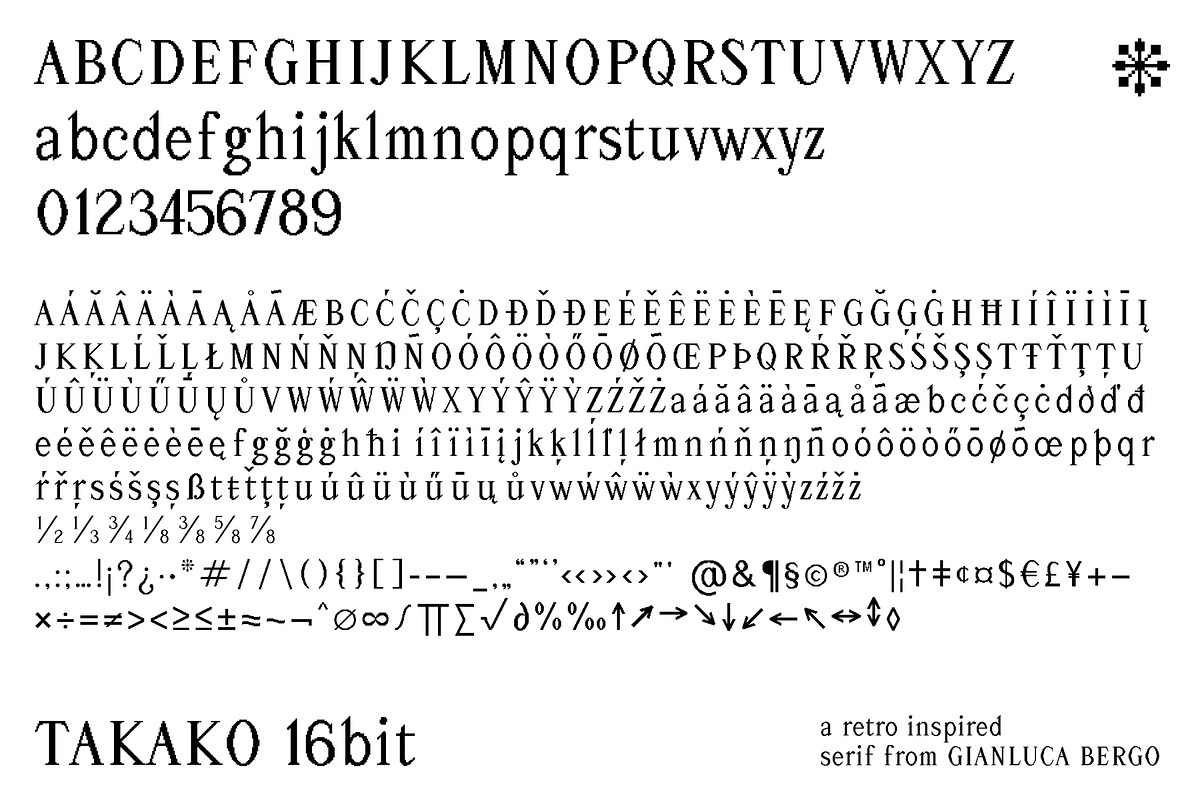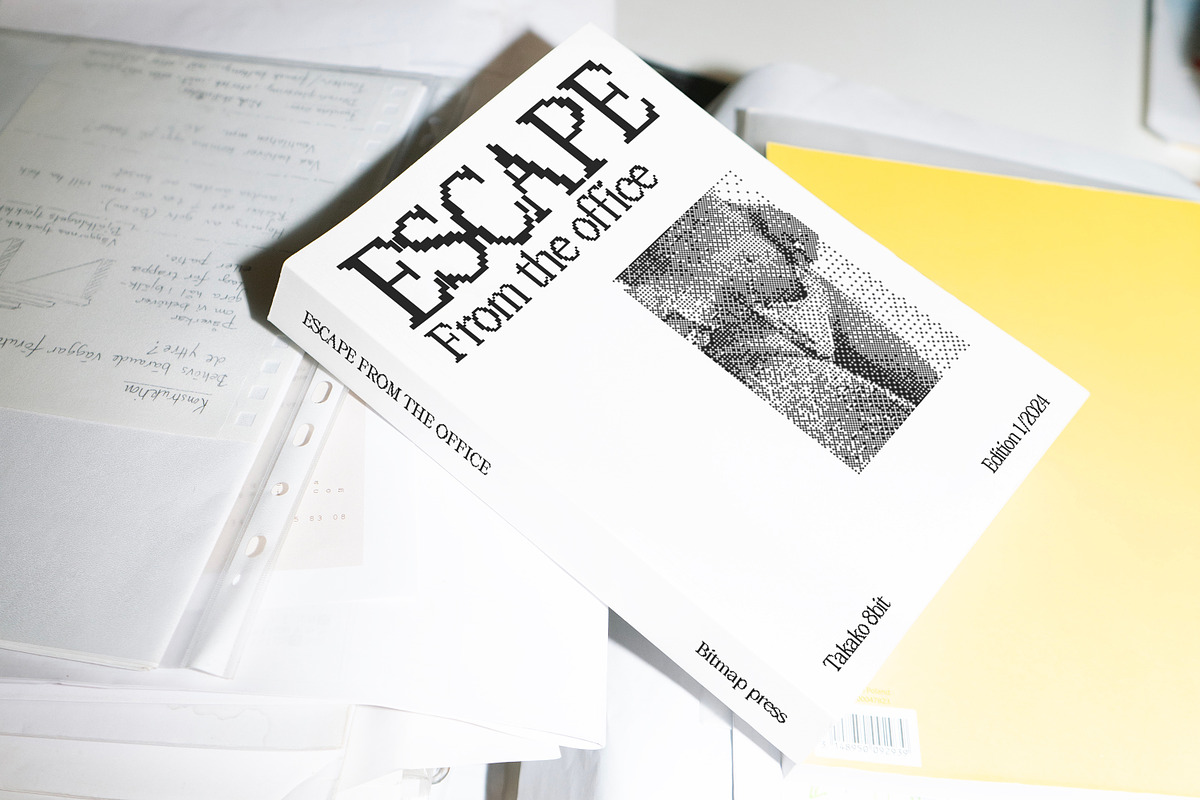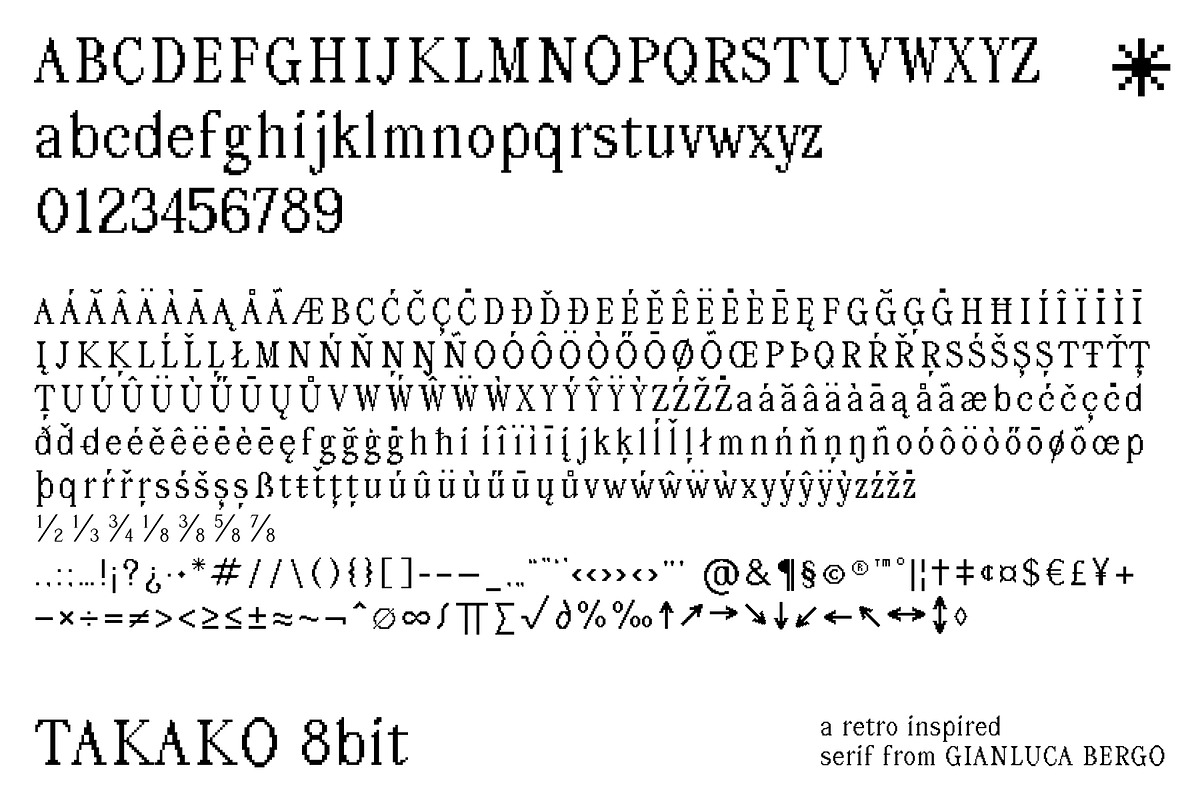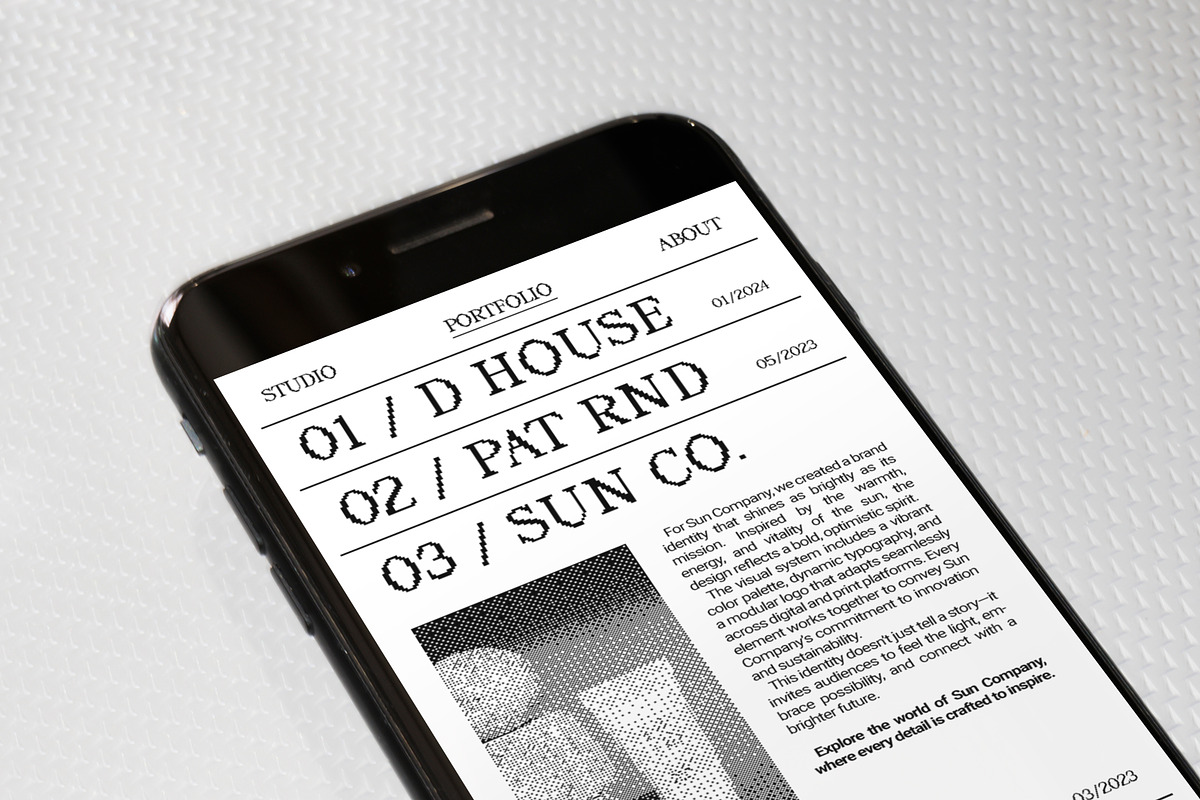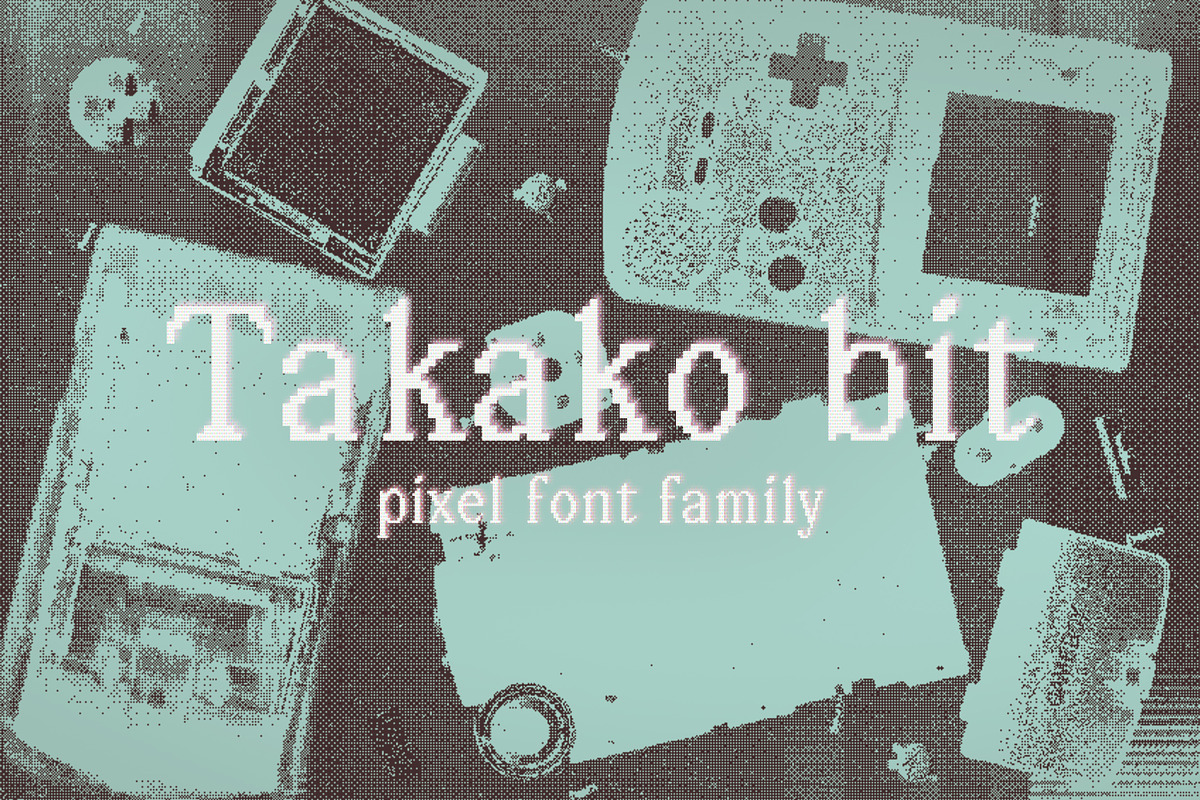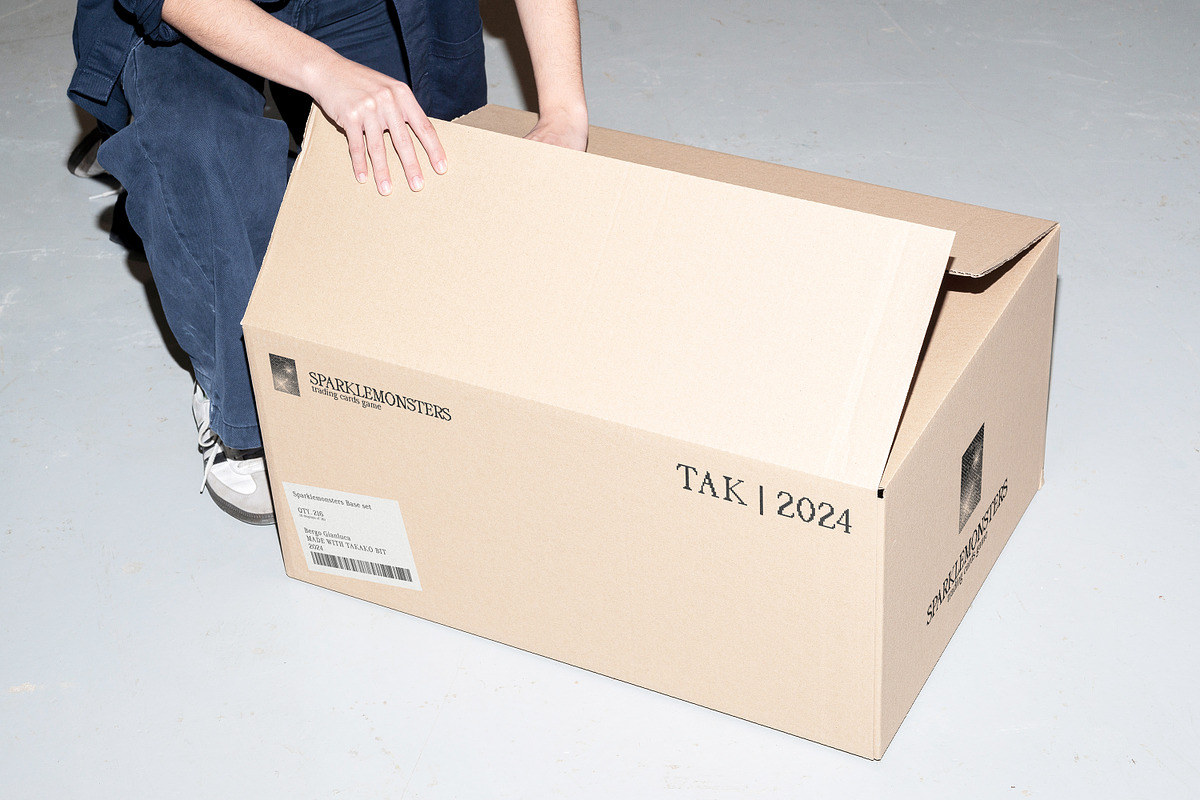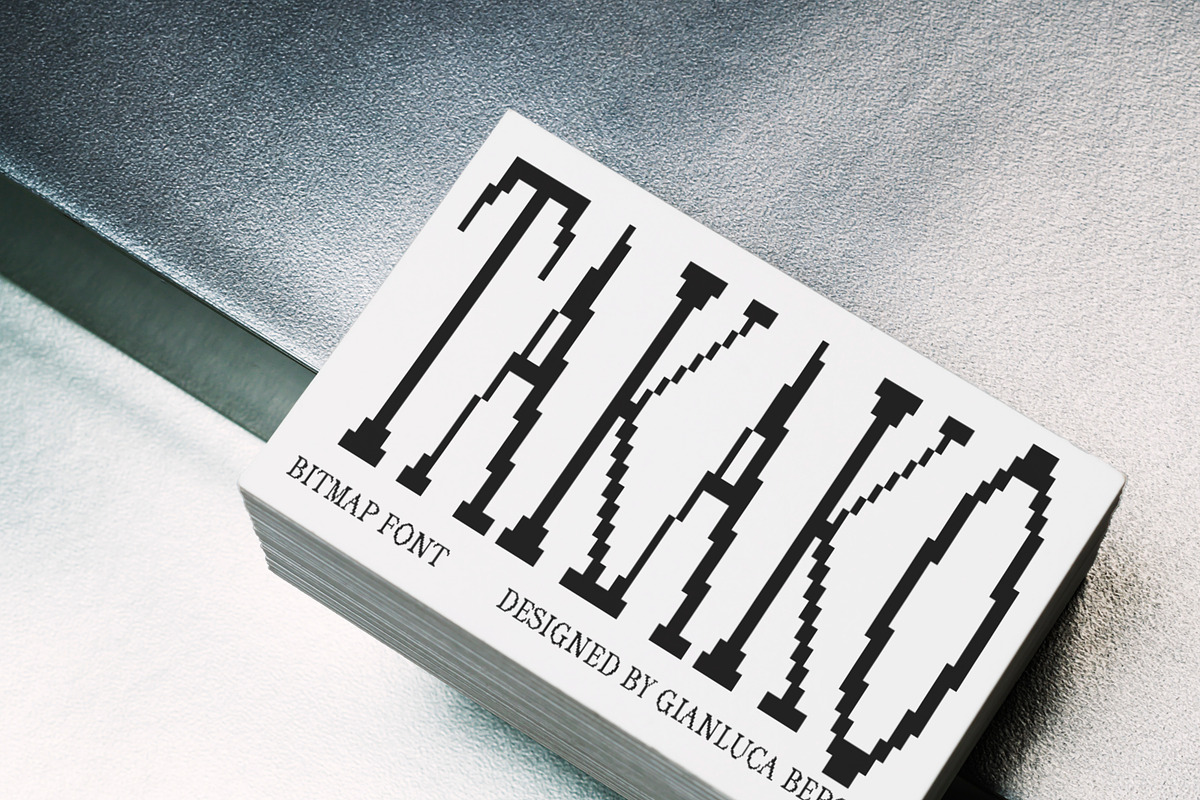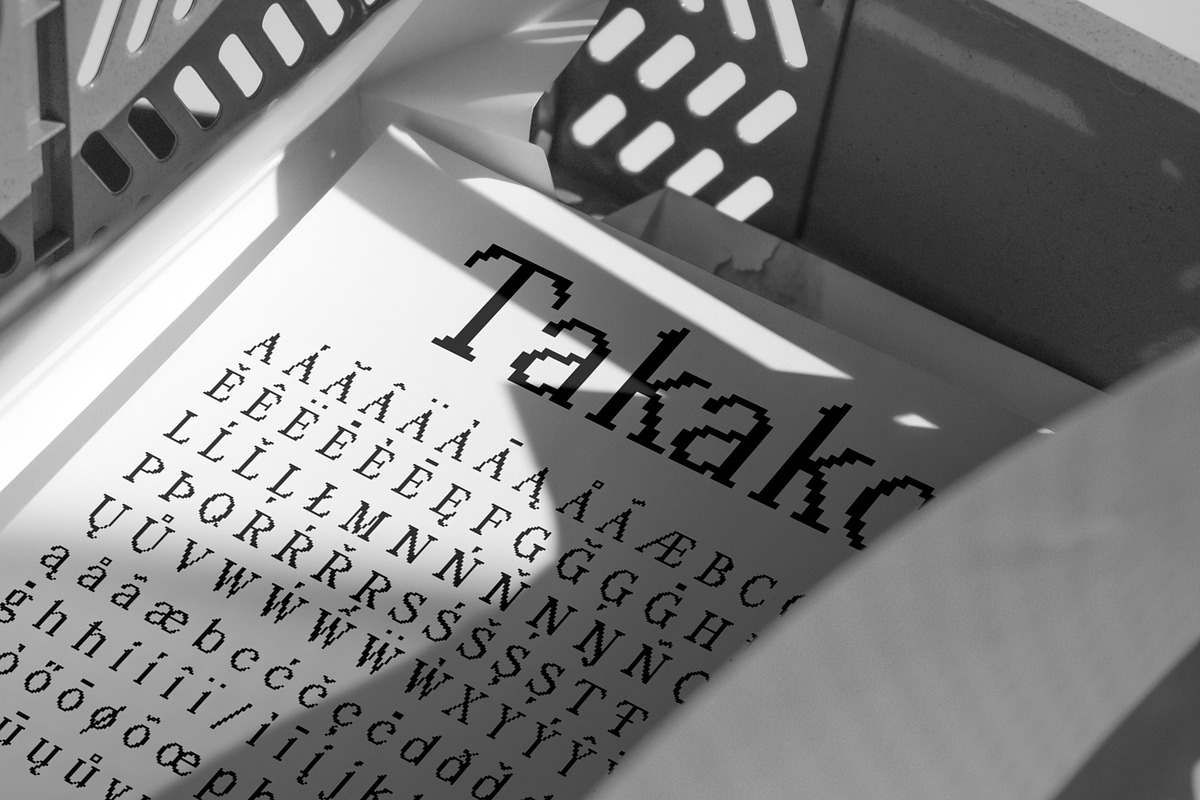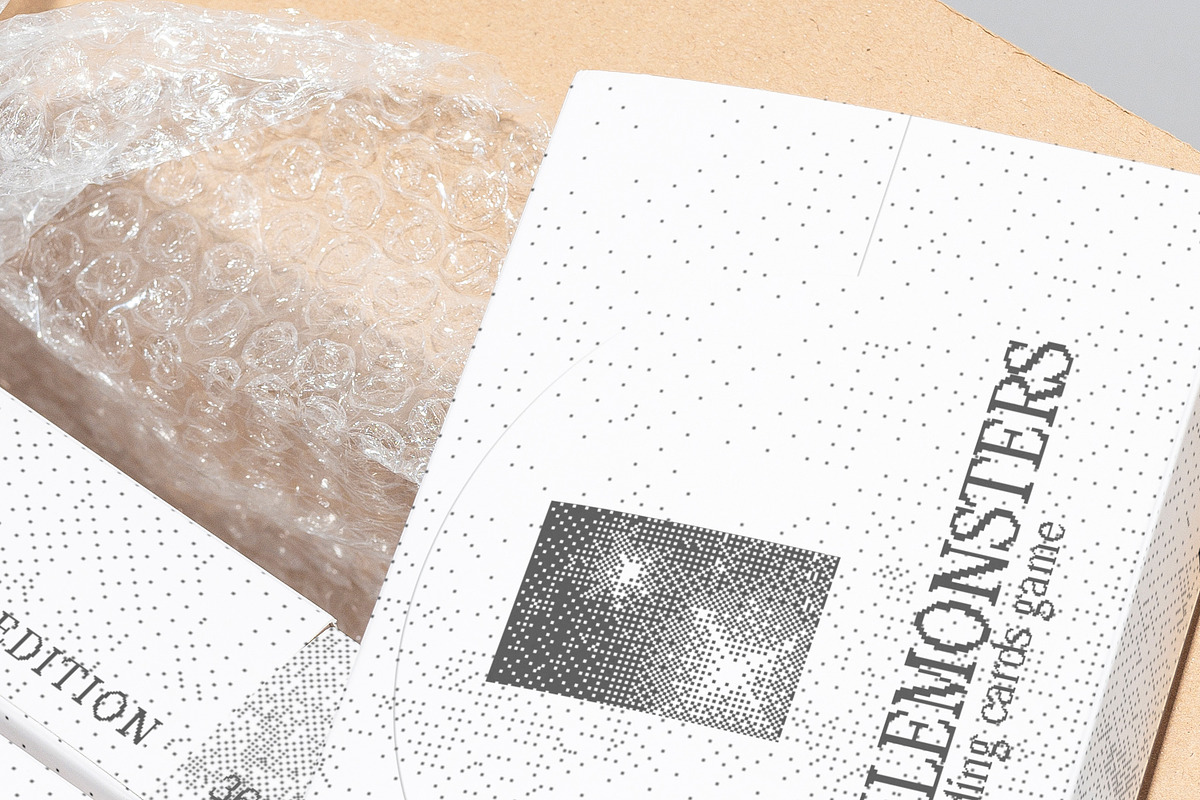
Takako bit - Pixel serif font family
Takako bit is a pixel reinterpretation of Takako serif, bringing its sharp elegance into the digital nostalgia of retro gaming aesthetics. Available in two distinctive styles, 8-bit and 16-bit, Takako bit blends classic design with pixel art to create a unique typographic experience.
- Retro Charm: The 8-bit variant evokes the simplicity and nostalgia of 1990s gaming, with clean, bold forms perfect for vintage-inspired projects.
- Enhanced Detail: The 16-bit variant offers more intricate and refined rasterization, delivering a richer and more detailed look suitable for modern creative applications.
- Sharp Elegance: Retaining the incisive serifs of the original Takako, this version maintains a striking visual appeal and excellent readability. _ Versatile Application: Ideal for branding, editorial, digital design, or any project that seeks to combine retro aesthetics with brutal sophistication.
Takako bit bridges the past and the present, offering a contemporary twist on pixel art typography.